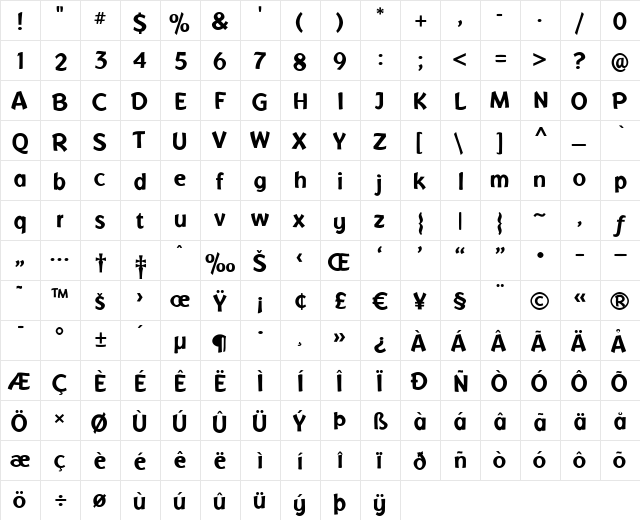
ResPublica Regular
Design Context for ResPublica Typeface
ResPublica offers clean, dependable letterforms without strong stylistic allegiance, making it a practical choice for designers who need flexibility.
Pro Tip: Use ResPublica in both headline and body roles to test its range before committing to a single application.